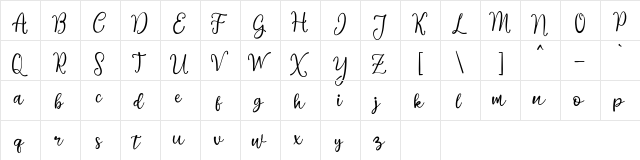
Vilona Italic
| Designer | Nico Muslib. Jember |
Design Context for Vilona Typeface
Vilona is a composed and adaptable typeface that performs quietly and consistently across a wide range of design contexts. Its italic angle brings a sense of urgency and motion to the letterforms.
Pro Tip: Try Vilona for annotation and caption copy alongside an upright companion — the contrast in angle creates a dynamic but ordered typographic system.